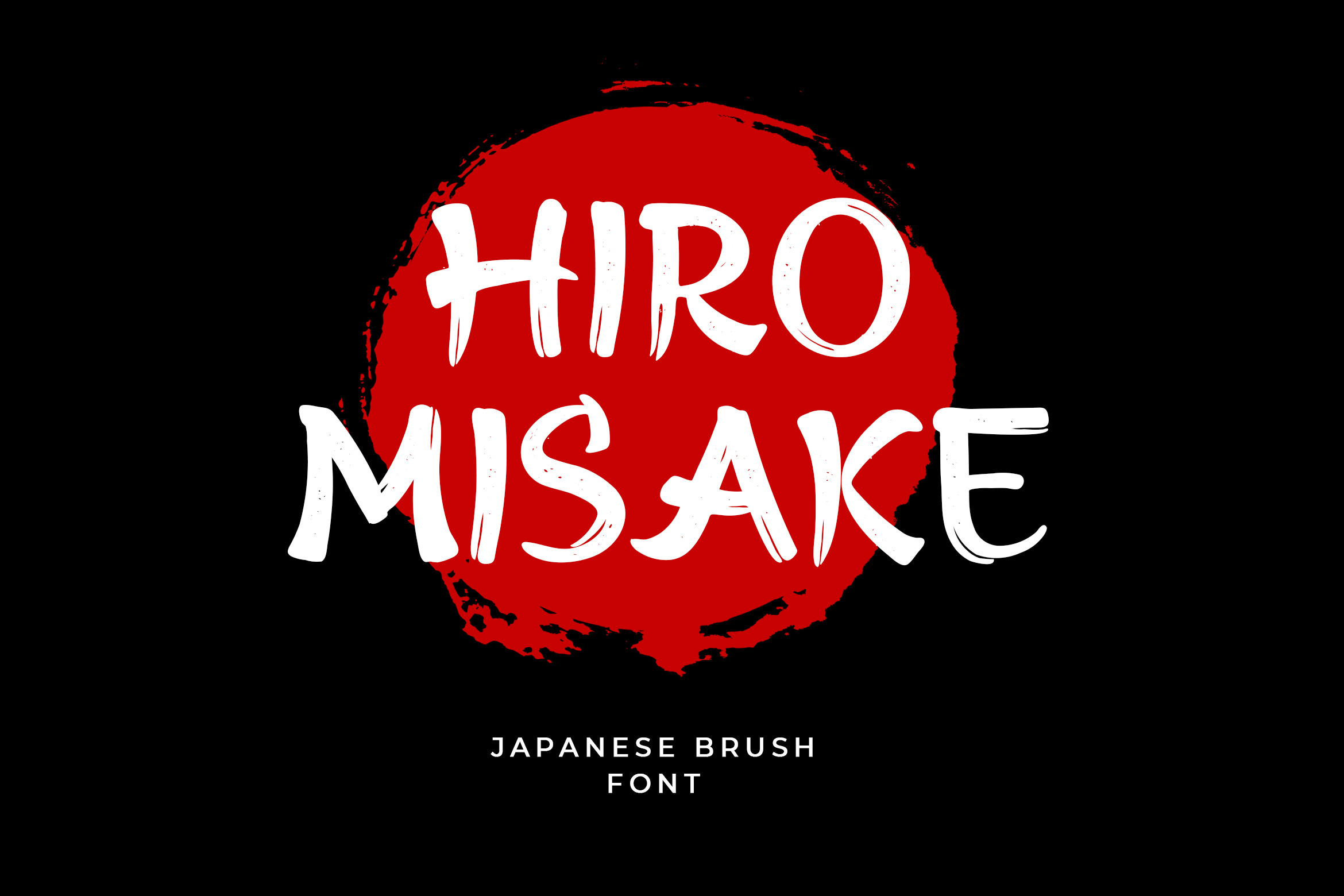
Hiro Misake Brush Japanese Font
Hiro Misake is a brush font with a Japanese style that made using the real brush pen. It looks very natural. This font is great for apparel, branding, logo, magazine, quotes, packaging, advertising, and more, that need the styling of a Japanese brush feel.